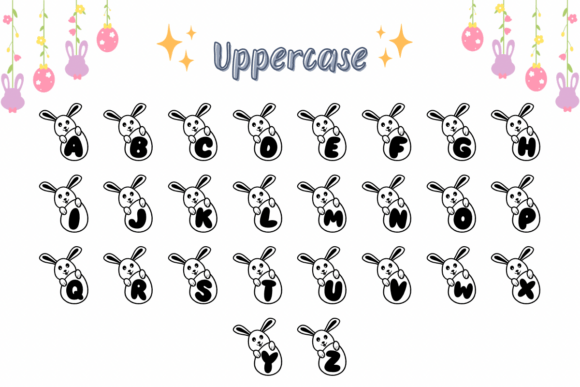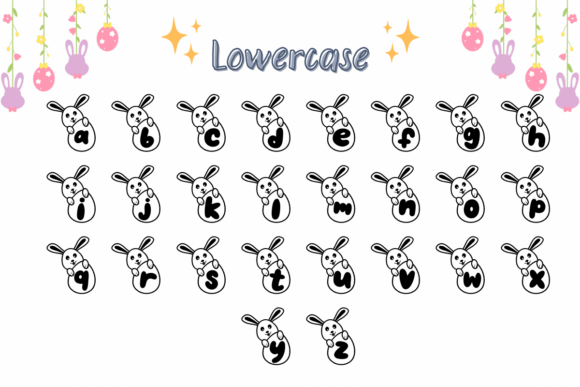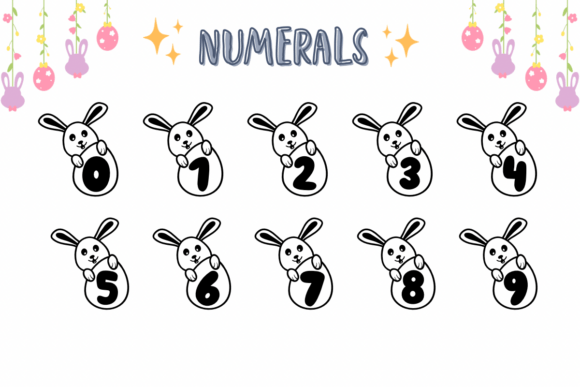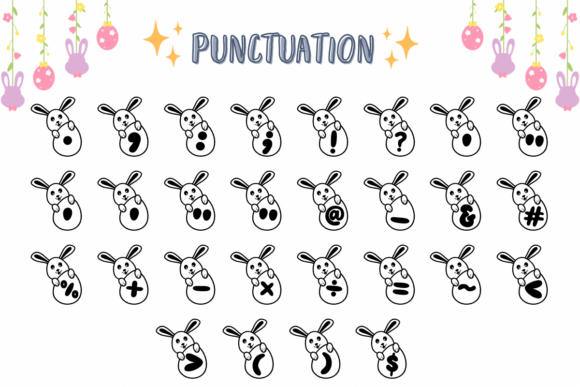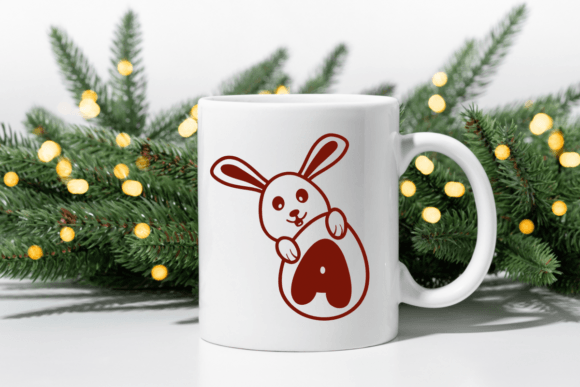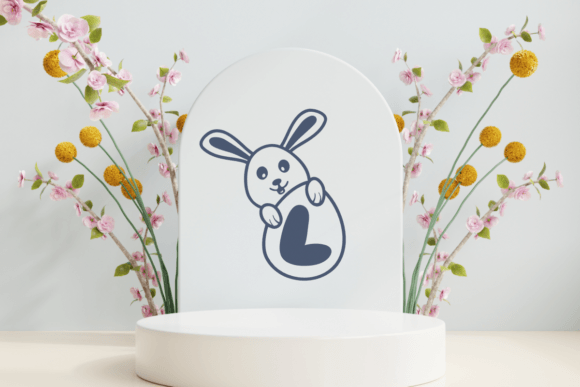
The Easter Rabbit Font: A Cute and Versatile Decorative Font for Your Creative Projects
I’ll never forget the Easter-themed craft fair I participated in last year. I was determined to create eye-catching decorations and cards, but I was struggling to find the perfect font to match my designs. That’s when I stumbled upon the Easter Rabbit font, and it instantly became my go-to choice. In this article, I’ll share my experience with this adorable font, its features, and how to make the most of it in your creative projects.
An Honest Review of Easter Rabbit Font
The Easter Rabbit font has won my heart with its playful and charming design. Here are what I love about it:
- ✨ Cute and festive design: Perfect for Easter-themed projects, but also versatile enough for other spring-inspired designs.
- ✅ Easy to read: Despite its decorative nature, the font remains clear and legible, making it suitable for body text.
- 🎨 Highly customizable: With OpenType features and glyphs, you can experiment with different styles and variations.
However, I did notice a few quirks:
- 🤔 Limited character set: While the font has a good range of characters, it might not support some special characters or languages.
- ⚠️ Not suitable for body text: While it’s readable, the font’s decorative nature makes it better suited for headings, titles, or short paragraphs.
The Backstory Behind Easter Rabbit Font
Easter Rabbit font was designed by a talented type designer who wanted to create a festive and fun font for spring-inspired projects. The designer drew inspiration from traditional Easter decorations, combining playful and whimsical elements to create a unique and charming font.
| Font Name | Easter Rabbit Font |
| Author | Natchuta |
| What is Easter Rabbit font best suited for? | Easter Rabbit font is perfect for Easter-themed projects, such as decorations, cards, and social media graphics. However, its playful design makes it versatile enough for other spring-inspired designs, like party decorations, children’s projects, or branding materials. |
| Is Easter Rabbit font suitable for body text? | While Easter Rabbit font is clear and legible, its decorative nature makes it better suited for headings, titles, or short paragraphs. For longer body text, consider using a more traditional font. |